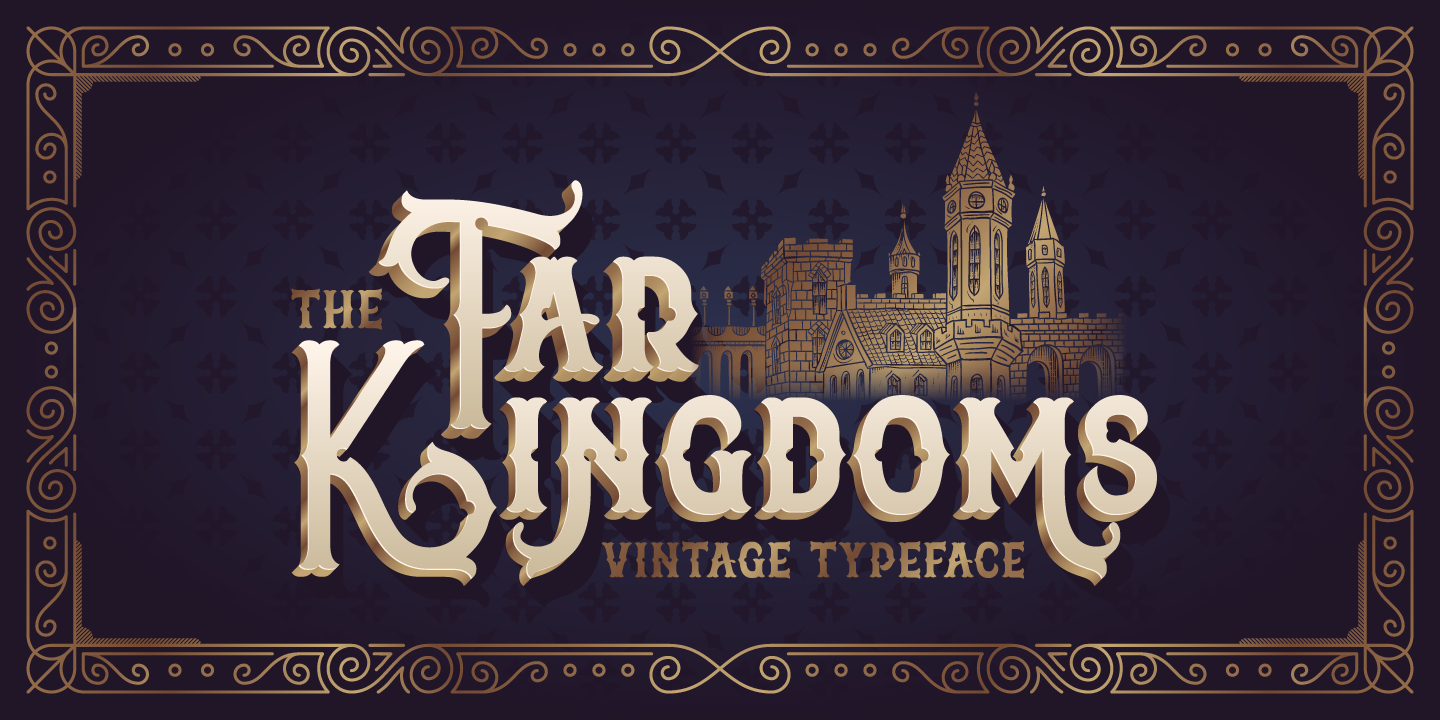
Far Kingdoms Font is perfect for epic fantasy book covers, magical gaming interfaces, mystical movie titles, enchanted fairy tale designs, medieval castle signage, legendary adventure posters, mythical creature branding, fantasy role-playing game graphics, magical kingdom event invitations, ancient scroll designs, mystical jewelry packaging, and otherworldly entertainment promotions.
What makes Far Kingdoms Font so exciting is its enchanting medieval elegance and mystical grandeur that perfectly transports viewers to distant realms of magic and ancient wonder. This extraordinary typeface features ornate letterforms with fantasy-inspired flourishes, regal proportions, and mystical design elements that evoke feelings of adventure, magic, and the timeless allure of legendary kingdoms, making it ideal for projects that need to communicate epic storytelling, magical experiences, and the captivating mystery of far-off fantasy worlds.
The Far Kingdoms Font family typically includes regular and ornamental variations with decorative medieval elements, fantasy ligatures, and magical character sets that enhance the mythical aesthetic while maintaining excellent readability for epic design applications.
Whether you're designing materials for fantasy entertainment or creating branding for magical experiences, Far Kingdoms Font Free Download provides the ultimate typography solution for projects requiring legendary sophistication and mystical appeal. This versatile font masterfully combines medieval authenticity with fantasy imagination, making it an invaluable resource for designers working on projects that celebrate epic adventures, magical storytelling, and the eternal human fascination with distant kingdoms filled with wonder, mystery, and limitless possibilities.